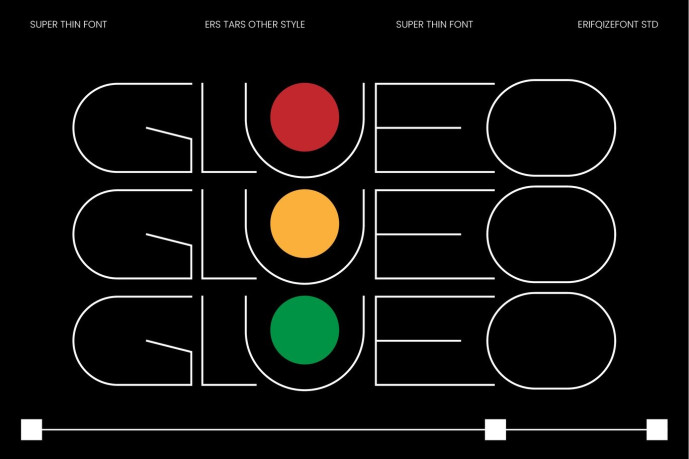
Glueo Thin Font
Designer: Eka Rifqi Setiawan
Glueo is a modern geometric thin display typeface designed with clean monoline construction, smooth rounded corners, and a minimalist aesthetic. Its lightweight appearance creates an elegant, futuristic, and sophisticated look, making it ideal for premium branding and contemporary design projects.
The family includes both Regular and Italic styles, offering greater flexibility for creating dynamic typography and refined visual hierarchies. With multilingual support, Glueo is ready for international projects across a wide range of Latin-based languages.
Perfect for logos, branding, editorial design, posters, packaging, architecture, technology, UI design, and modern visual identities, Glueo delivers clarity, balance, and timeless geometric beauty.